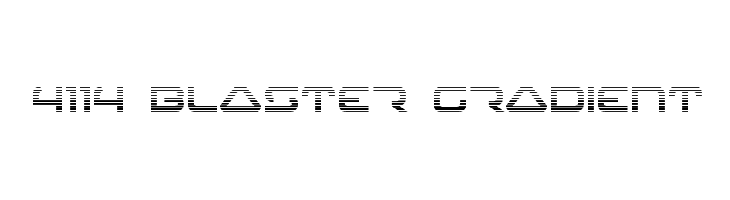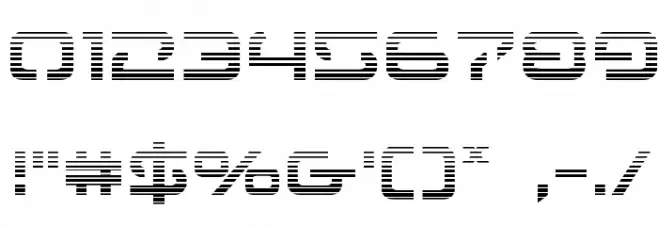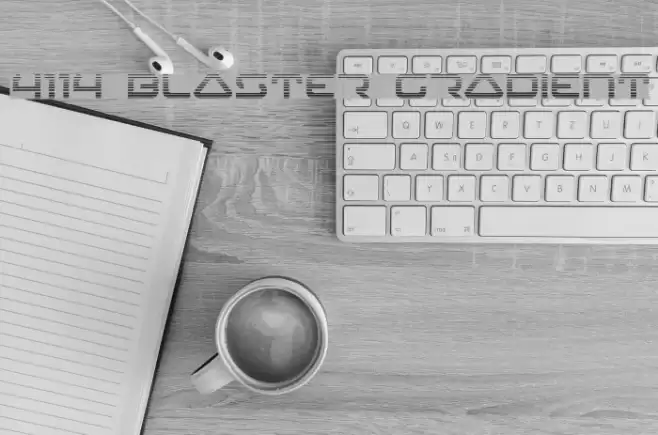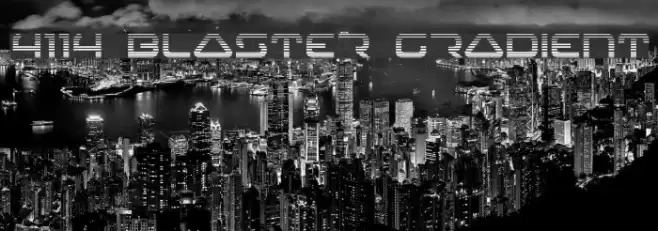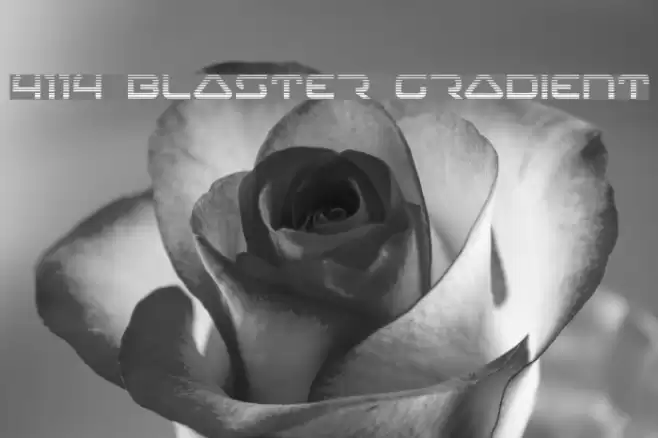
4114 Blaster Gradient Font
4114 Blaster Gradient Description
This font features a futuristic and dynamic design with a distinct gradient effect created by horizontal lines cutting through each character. The uppercase and lowercase letters maintain a consistent style, emphasizing sharp angles and geometric forms. Numbers and special characters follow the same aesthetic, ensuring uniformity across all glyphs. The font's unique appearance makes it stand out, ideal for projects that require a modern and edgy look.
| Proposed Projects | Ideal for sci-fi themed projects, technology branding, video game titles, and modern posters. |